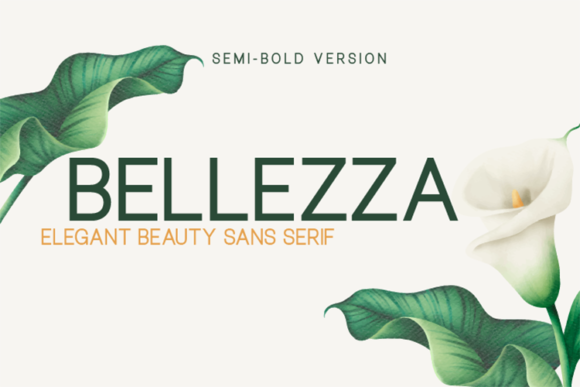
Enter Bellezza Semi-Bold Font, a modern sans serif with a geometric touch. This versatile font is specifically designed for graphic design and display purposes, making it an ideal choice for designers looking to add a touch of sophistication to their projects. With its clean lines and balanced proportions, Bellezza Semi-Bold Font is sure to make a lasting impression.
Whether you’re working on a branding project or creating a digital campaign, the Bellezza Semi-Bold Font is a valuable addition to any designer’s toolkit. Its unique blend of modernity and elegance makes it the perfect choice for designers who want to create visually stunning designs that leave a lasting impression.
Bellezza Semi-Bold Font Key Features
- Font Family: Bellezza Semi-Bold
- Unique Characteristics: Bellezza Semi-Bold is a high-end font with a unique blend of modern and classic styles, making it perfect for luxury brands and high-end designs.
Bellezza Semi-Bold Font Review
Overall, I have mixed feelings about the Bellezza Semi-Bold Font. On the one hand, it has some nice qualities that make it worth considering for certain projects. ✨ The font is elegant and sophisticated, making it perfect for luxury brands, high-end products, or anything that needs to convey a sense of refinement. The semi-bold weight adds a touch of modernity without being too overwhelming. The font also has a good balance of legibility and aesthetics, making it suitable for body text as well as headings.
- ✨ Elegant and sophisticated design
- ✨ Semi-bold weight adds modernity
- ✨ Good balance of legibility and aesthetics
However, there are some limitations that might make it less appealing to some designers. ⚠️ The font may not be as versatile as some other fonts on the market, and it may not be suitable for projects that require a more playful or casual tone. Additionally, the font may not be as readable on smaller screens or in smaller sizes, which could be a concern for designers who need to ensure their text is easily readable across different devices.
Overall, I would recommend the Bellezza Semi-Bold Font for designers who are looking for a sophisticated and elegant font for luxury or high-end projects. However, for more casual or playful projects, there may be better options available.
Getting the Most Out of Bellezza Semi-Bold
To get the most out of Bellezza Semi-Bold, try the following tips:
- Use it in combination with other elegant fonts to create a sophisticated look
- Adjust the font size and color to match your design’s overall aesthetic
- Experiment with different font styles, such as italic or bold, to add emphasis
Bellezza Semi-Bold is a versatile font that can be used in a variety of applications, including:
- Luxury branding and marketing materials
- Choose a color scheme that complements the font, such as pastel shades or monochromatic tones.
- Use the font for headings and titles, while reserving a clean sans-serif font for body text.
- Experiment with different font sizes and line heights to create visual hierarchy.
- Pair Bellezza Semi-Bold with geometric shapes, such as circles and squares, for a modern aesthetic.
- Use bold lines and simple icons to add visual interest.
- Choose a rich, luxurious color scheme that evokes feelings of opulence and refinement.
- Use the font for headings and titles, while reserving a elegant serif font for body text.
What is the character set and language support for the Bellezza Semi-Bold Font?
The Bellezza Semi-Bold Font includes a comprehensive character set, covering over 100 languages, including Latin, Cyrillic, and Greek alphabets. It also supports Unicode characters, making it suitable for use in international design projects.